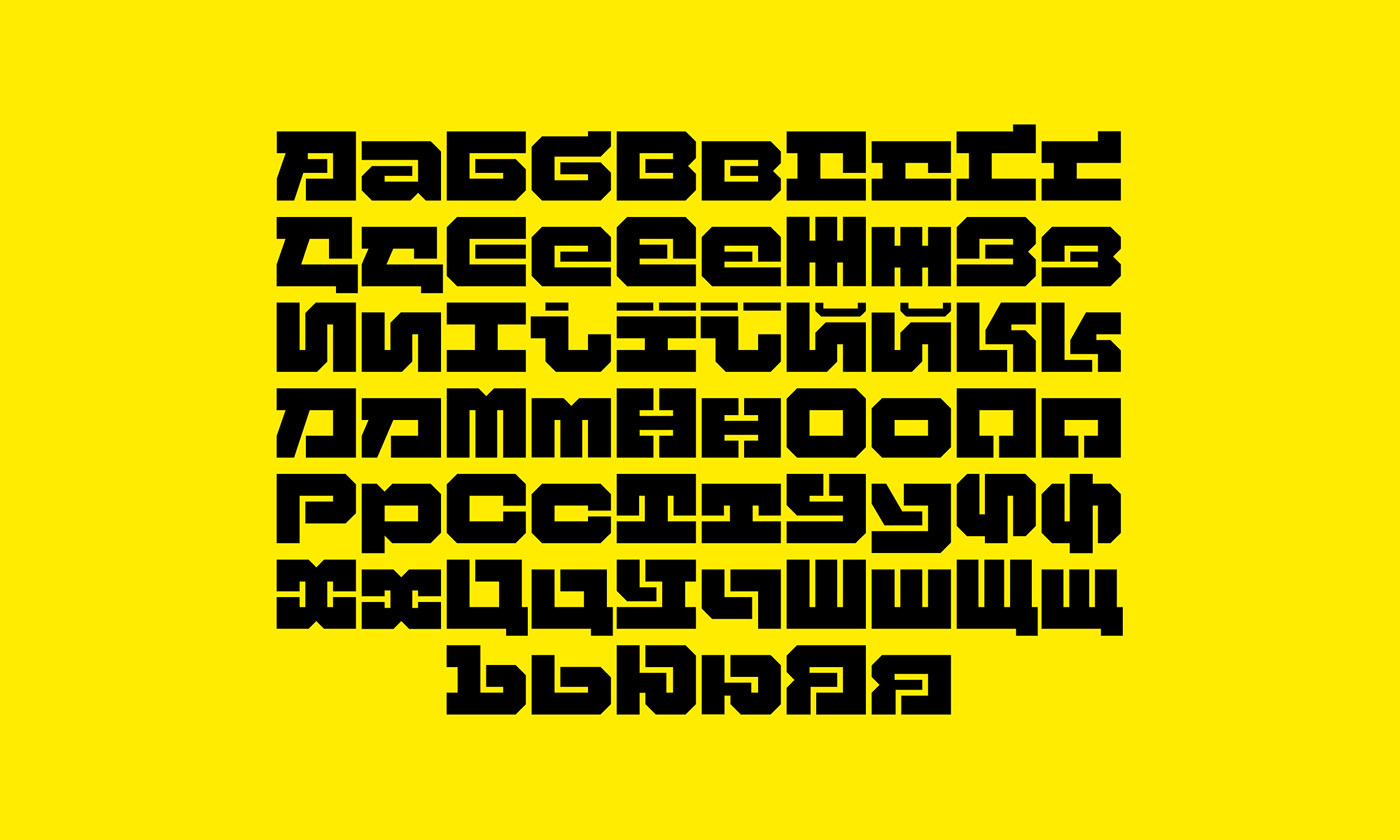
BRINKY by Maksym Kobuzan is a completely FREE display monospaced typeface inspired by the aesthetics of early 1980s console games.
BRINKY has 965 glyphs and 0 kerning pairs (because it's monospaced). The peculiarity of the graphics is that the letters displace the void as much as possible and fill the space around them.
Diacritics, as well as ascenders and descenders, do not go beyond the letter (except lowercase letters). This makes it possible to type text in blocks with minimal leading. Also, many characters have alternatives. This is especially true for letters with diacritics.
BRINKY knows Extended Latin, Extended Cyrillic and Greek. And it speaks many languages.